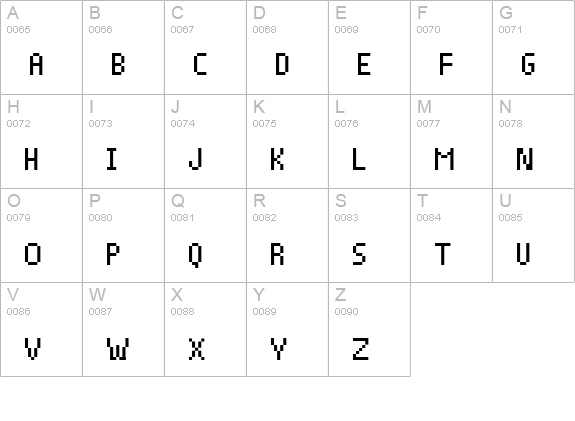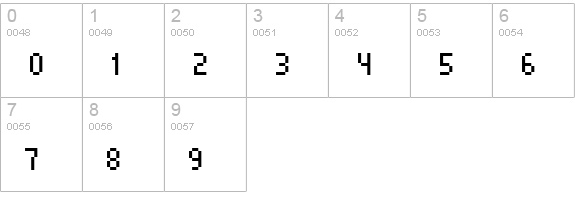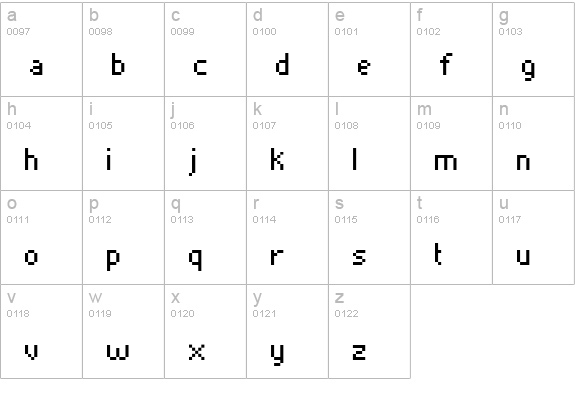
Pixelade Font Details
Introducing Pixelade, a revolutionary font that is bound to take your designs to the next level. This unique typeface is the perfect blend of retro nostalgia and modern aesthetics, making it an ideal choice for any creative project. Pixelade is meticulously crafted to capture the essence of classic pixel art while still maintaining a contemporary feel. Its clean lines and crisp edges ensure that every character is visually striking and easily legible. Whether you're designing a video game, a website, or a print advertisement, Pixelade will bring a sense of charm and personality to your work. What sets Pixelade apart from other fonts is not only its impeccable design but also its accessibility. We are thrilled to announce that Pixelade is available for free download exclusively at FontsMarket.com. This means that you can now enjoy the benefits of this exceptional font without any cost or hassle. Imagine having the power to enhance your designs with a font that not only captures the essence of retro gaming but also adds a modern twist. Pixelade does just that, allowing you to create visually stunning graphics with ease. Its versatility makes it suitable for a wide range of applications, from logos and headlines to body text and captions. So why wait? Download Pixelade today and experience the world of possibilities it opens up for your design projects. With its free availability at FontsMarket.com, you have no reason not to give this remarkable font a try. Embrace the nostalgia, embrace the future, and let Pixelade elevate your designs to new heights.